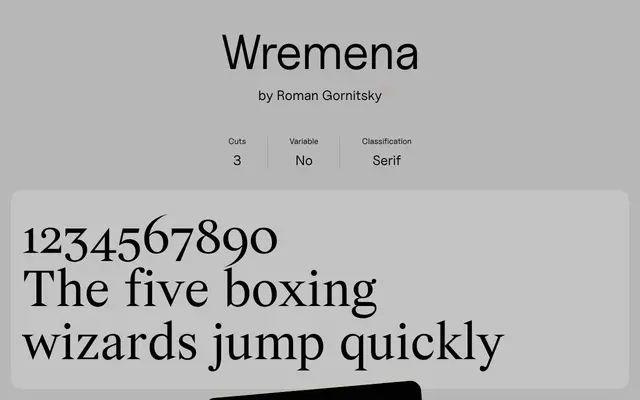
Wremena
seriftransitional serif
A free serif by Roman Gornitsky available in three cuts, suitable for both commercial and personal projects.
A serif typeface by Russian designer Roman Gornitsky, offered in three cuts with no variable axis. The family carries the characteristics of a text-oriented transitional serif and is freely licensed for commercial use. Its Cyrillic heritage is suggested by the name, making it a practical choice for projects requiring that script coverage.
Listed under Serif classification on the page. The name and design lineage suggest a Times-adjacent transitional serif, consistent with Gornitsky's work in the genre.